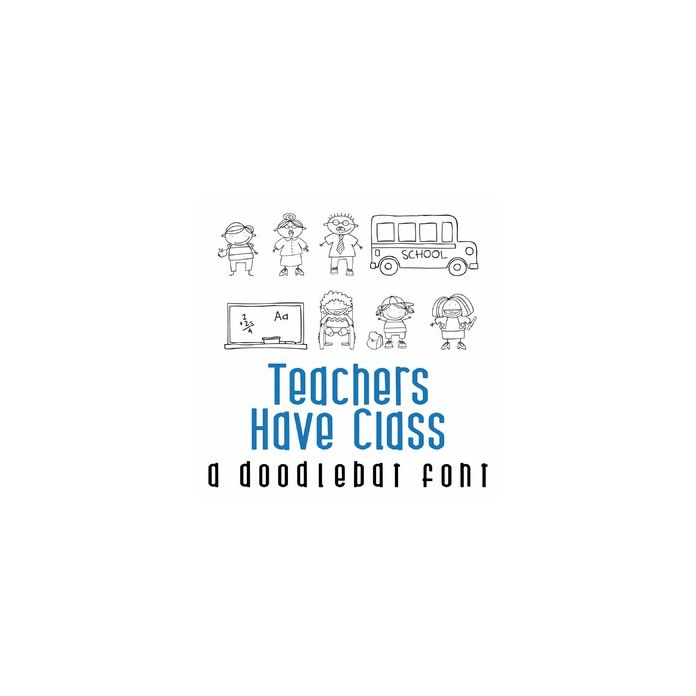
Teacher's Have Class Doodlebat Font
This fun doodlebat font features 26 school themed stick figures. Perfect for cards, crafts, gifts, decor, scrap book pages, planner stickers and more!